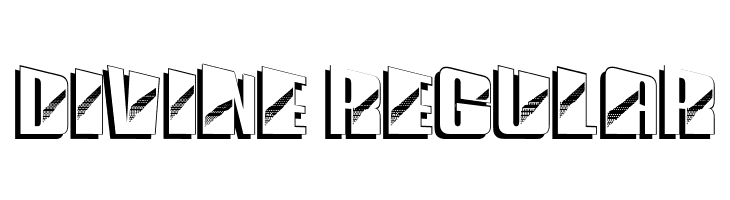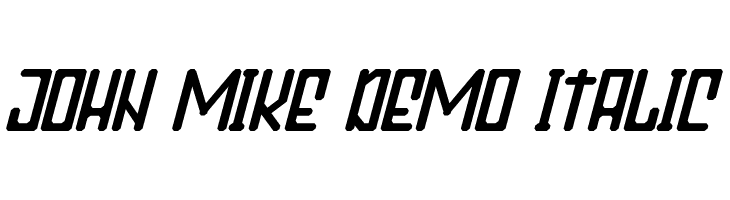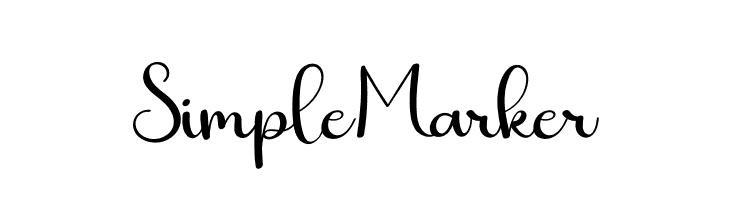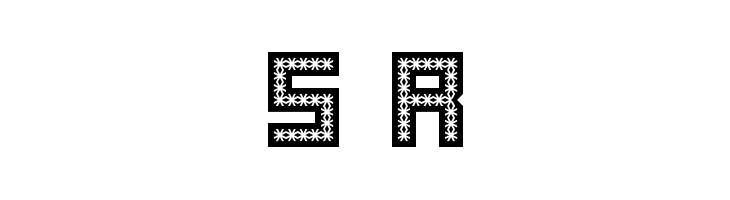
A bold, 3D geometric font with a dotted texture and strong visual impact.
A bold, rounded font with a modern and friendly style.
A bold, flowing script font with elegant curves and connected strokes.
A modern, extra-condensed sans-serif font with bold weight, ideal for UI design.
A bold, dynamic script font with fluid, cursive letterforms.
A bold, geometric font with a futuristic and industrial design.
Futuristic, bold italic font with outlined, geometric characters.
A sleek, modern italic font with a clean and elegant design.
A bold, modern sans-serif font with geometric precision and strong readability.